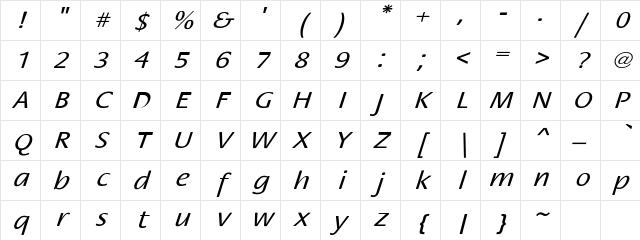
Complete FloraExtObl-Nor Regular glyph index. Displaying only characters natively supported by FloraExtObl-Nor Regular font.
FloraExtObl-Nor is a composed and adaptable typeface that performs quietly and consistently across a wide range of design contexts.